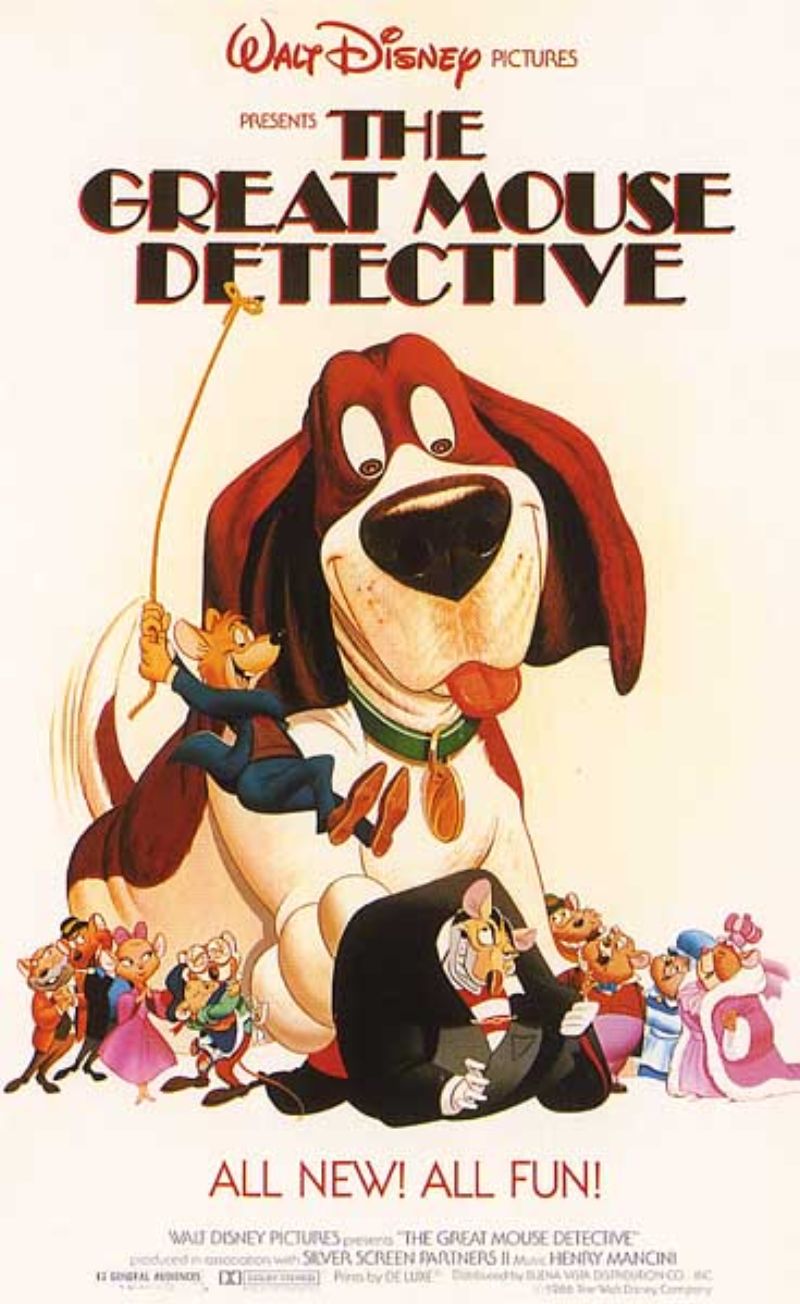
The Great Mouse Detective Font
The Great Mouse Detective title in the original theatrical poster is set in Broadway, an Art Deco typeface created by Morris Fuller Benton in 1927 for ATF.